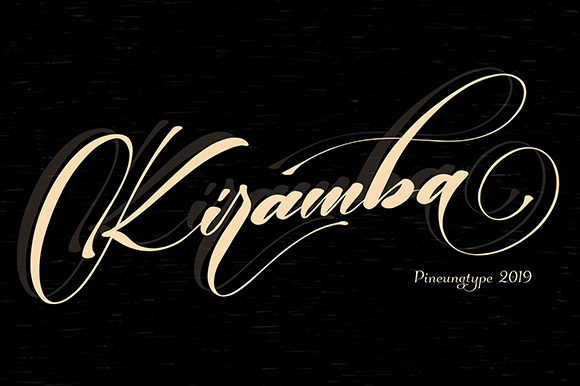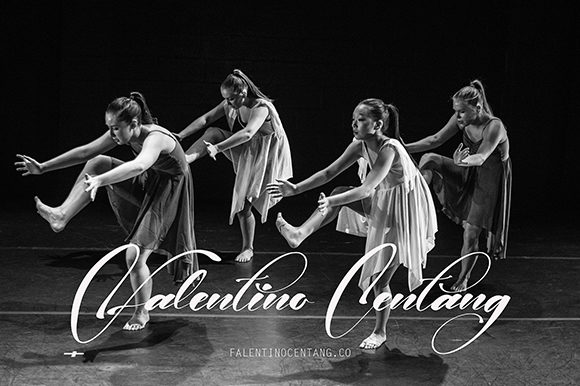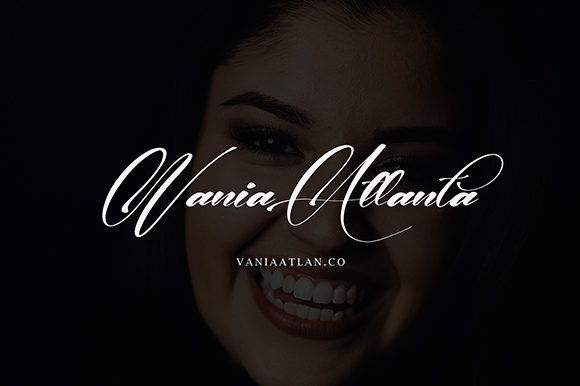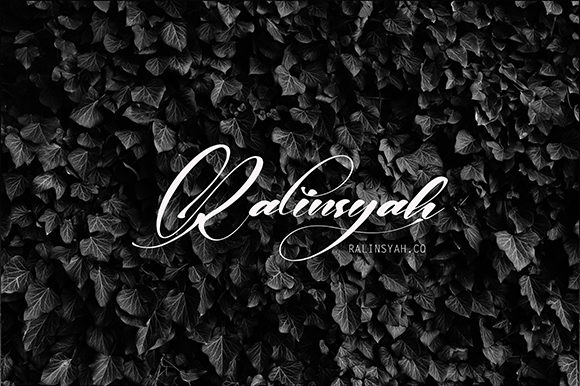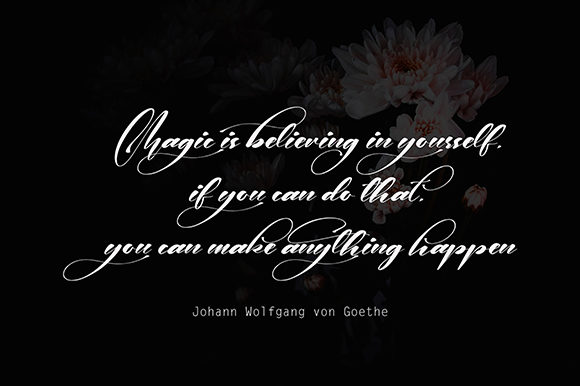
HomeScript FontsKiramba Font Script Fonts Kiramba Font FacebookXPinterestWhatsApp Kiramba Font Poster 2 Kiramba Font Poster 3 Kiramba Font Poster 4 Kiramba Font Poster 5 About Kiramba Font Kiramba is a fun and authentic handwritten font with an elegant touch. Get inspired by its beautiful swashes! DOWNLOAD NOW People also explored Bendungan Signature Font Brush Textured Font Bundle Vol. 5 Migotka Font Garmint Font Sunday Magic Font Ramen Neko Font Alexandera Font Americana Bakery Font Gandhi Font 305 0 TagsKiramba Font Previous articleHanty Kagote FontNext articleDontha Tethaki Font LEAVE A REPLY Cancel reply Comment: Please enter your comment! Name:* Please enter your name here Email:* You have entered an incorrect email address! Please enter your email address here Website: Save my name, email, and website in this browser for the next time I comment. Personal Use Free Dream Personal Use Free Read more about this font Over the Top Personal Use Free Read more about this font Amellis Path Personal Use Free Read more about this font Jilliant Personal Use Free Read more about this font BLOG How to Cut Any Font on Cricut: Convert a Font to SVG (Free) Turn any font into a clean SVG so it cuts crisp on Cricut - a quick 3-step workflow using a free font-to-SVG tool. Best Fonts for T-Shirt Design – Top 2025 Picks How to Install and Use Fonts on Windows, macOS, and Web Projects 5 Fonts That Will Dominate Design Trends in 2026